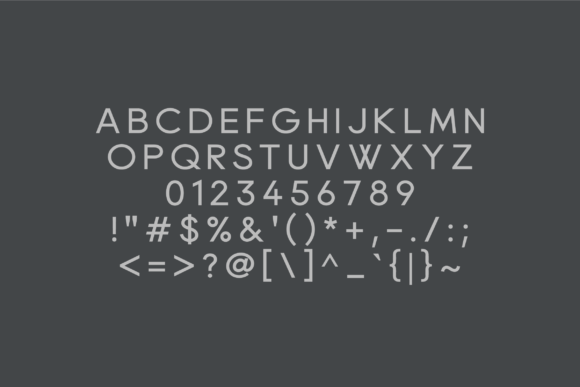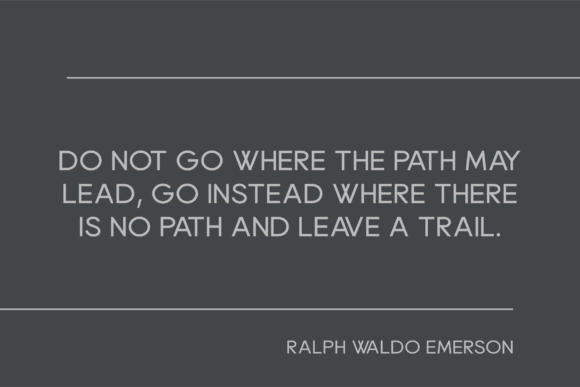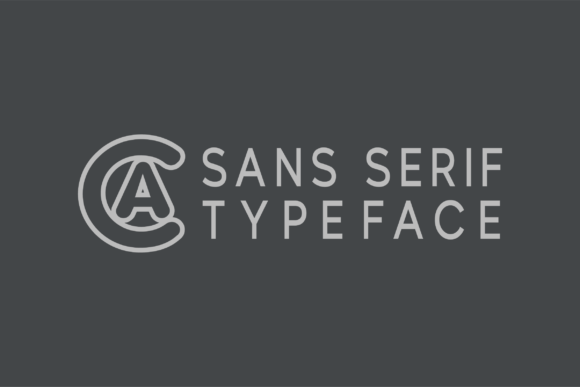
Meet Your New Design Companion: Alkyone Font
Have you ever stared at a blank page, waiting for inspiration to strike? That’s exactly what happened to us when we discovered the Alkyone Font – a modern sans serif typeface designed to elevate your designs to the next level. With its sleek lines and sophisticated feel, Alkyone Font is perfect for creating captivating logos, elegant invitations, and eye-catching advertisements.
Whether you’re a seasoned designer or just starting out, Alkyone Font is an invaluable addition to your toolkit. Its versatility and range of characters, numerals, and punctuation make it an ideal choice for print and magazine layouts. With Alkyone Font, you can add a touch of class to your designs, making them truly stand out from the crowd. Say goodbye to bland typography and hello to a world of creative possibilities with the Alkyone Font.
- Unique Characteristics: Alkyone Font features a unique blend of modern and classic elements, with a focus on legibility and readability in both digital and print media
Alkyone Font Review
Alkyone is a stunning display font that offers a unique blend of elegance and modernity. It truly shines in ✨ headings and titles, providing a touch of sophistication to any design project.
The font’s distinctive design, with its flowing lines and organic feel, makes it perfect for creative and artistic projects. It’s particularly well-suited for ✨ magazine covers, ✨ advertisements, and ✨ branding materials.
However, Alkyone has some limitations that designers should be aware of.
- ⚠️ Limited legibility at smaller font sizes: The font’s intricate design can make it difficult to read at smaller sizes, which may limit its use in body text or smaller headings.
- ⚠️ Limited language support: Alkyone may not include all the necessary glyphs for certain languages, which could be a limitation for designers working with multilingual content.
Overall, Alkyone is a beautiful and versatile font that can add a touch of elegance to any design project. While it may have some limitations, its unique design and versatility make it a great choice for designers looking to add some creativity to their work.
Tips for Getting the Most Out of Alkyone Font
Here are some tips to help you get the most out of the Alkyone font:
- Use Alkyone font for headings and titles to create a bold and eye-catching effect.
- Pair Alkyone font with a clean and simple font for body text to create a balanced design.
- Experiment with different font sizes and styles to create a unique and personalized look.
Circular Std
Circular Std is a modern sans-serif font designed for digital use. It features a clean and minimalist aesthetic, making it ideal for digital interfaces, apps, and websites.
Compared to Alkyone Font, Circular Std has a more geometric and precise feel, while Alkyone Font has a more organic and cursive feel. Use Circular Std for digital projects where a clean and modern aesthetic is required.
Montserrat is a sans-serif font inspired by urban typography. It features a strong and geometric feel, making it ideal for headlines, titles, and body text in digital and print projects.
Compared to Alkyone Font, Montserrat has a more geometric and structured feel, while Alkyone Font has a more organic and cursive feel. Use Montserrat for projects where a strong and modern aesthetic is required.
Merriweather is a classic serif font designed for print use. It features a traditional and elegant aesthetic, making it ideal for books, magazines, and other print materials.
Compared to Alkyone Font, Merriweather has a more traditional and formal feel, while Alkyone Font has a more modern and cursive feel. Use Merriweather for print projects where a classic and elegant aesthetic is required.